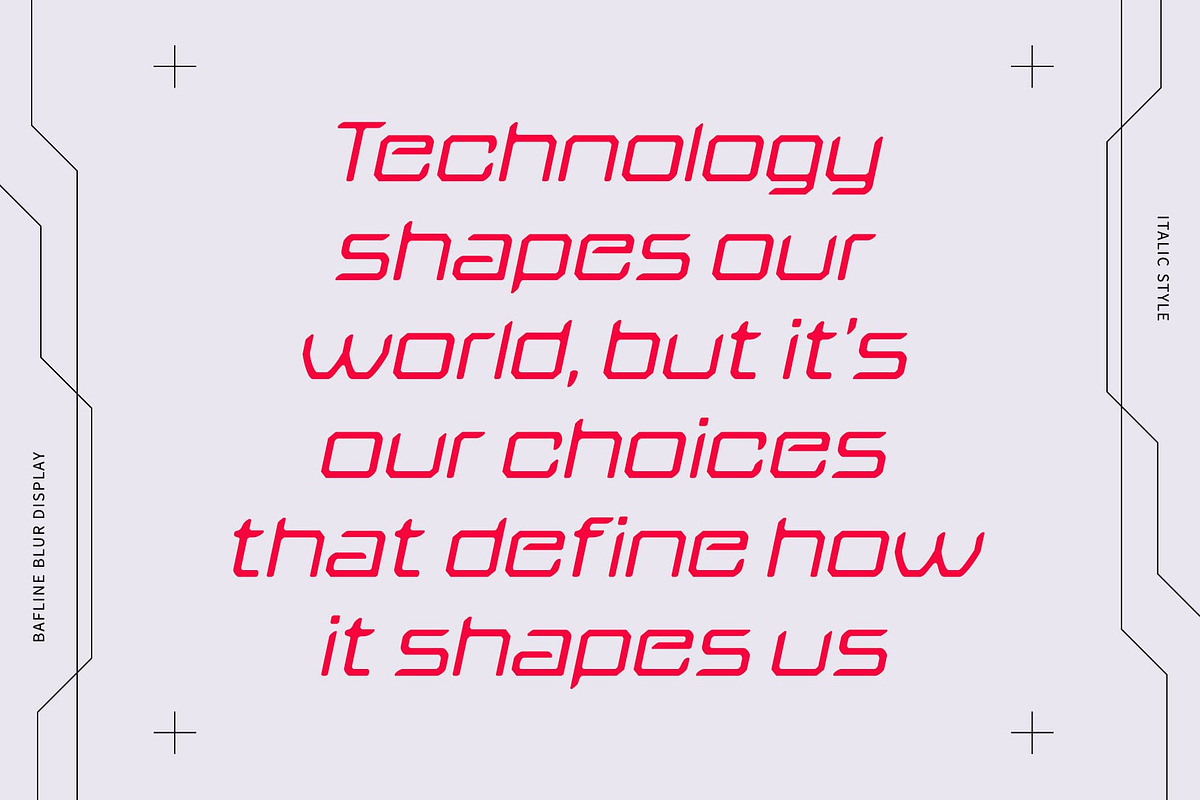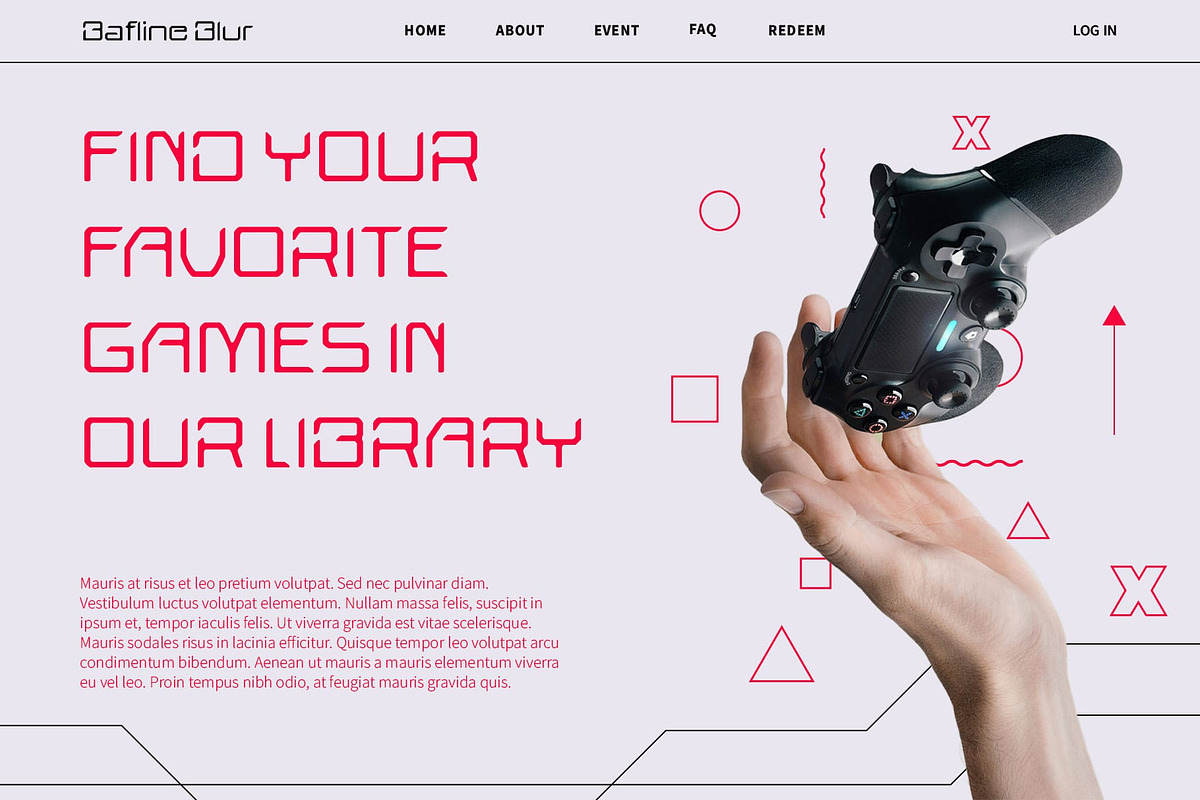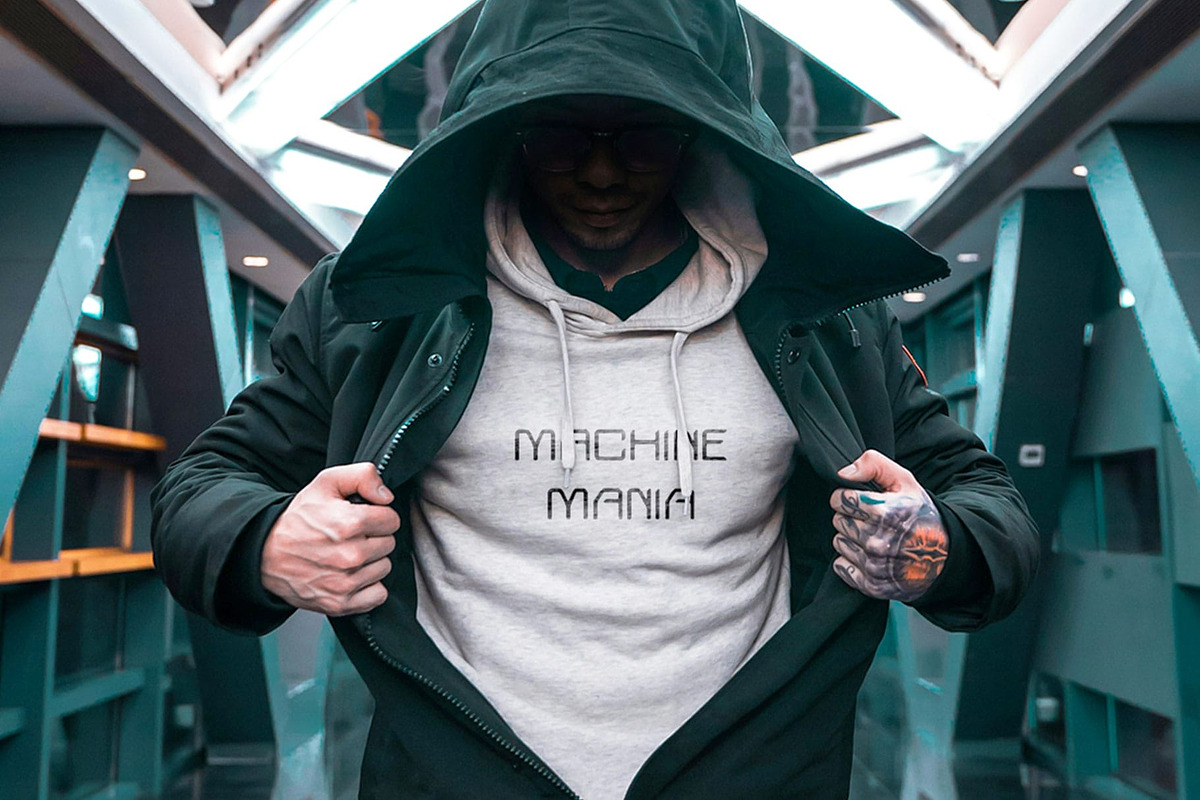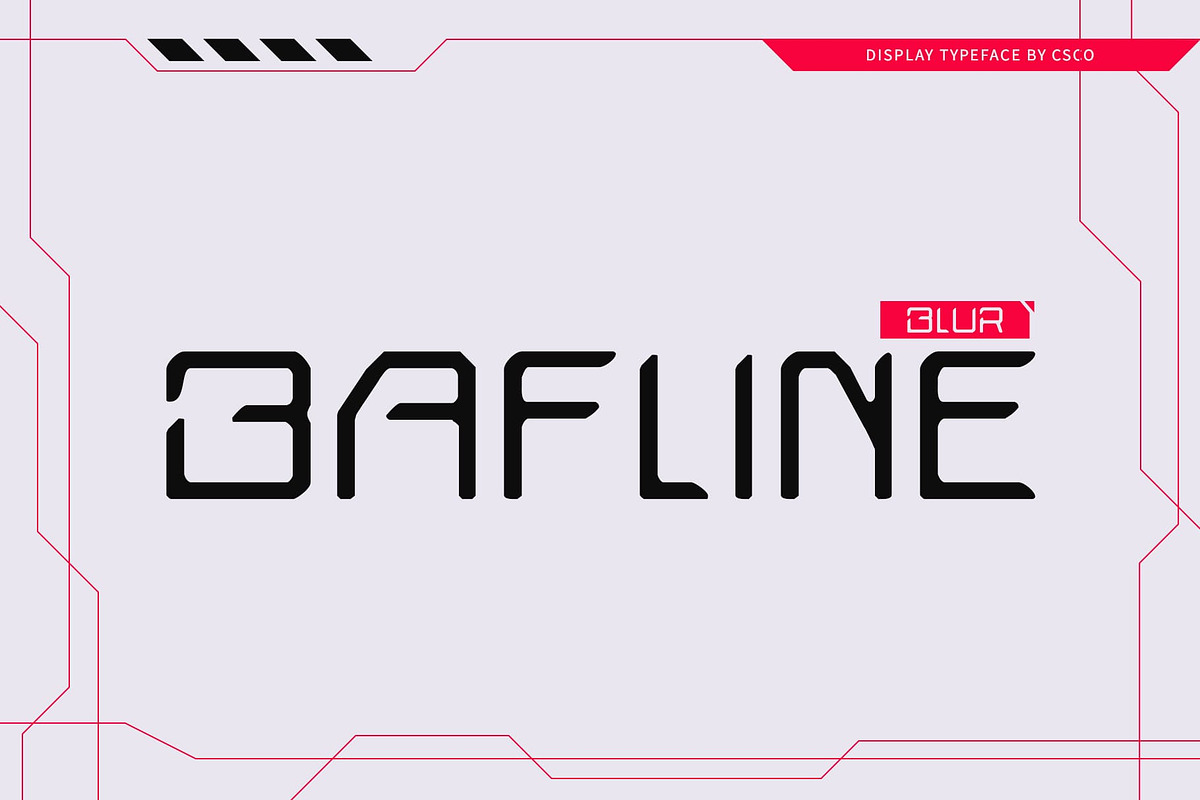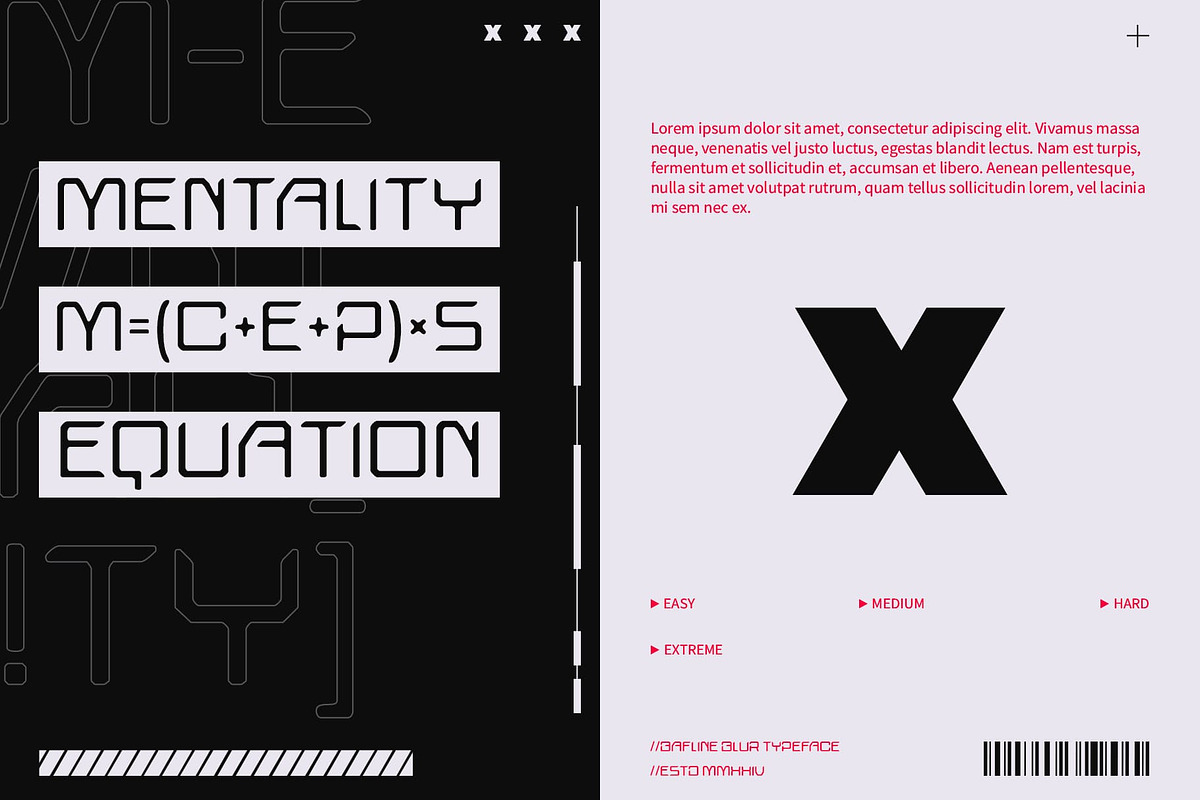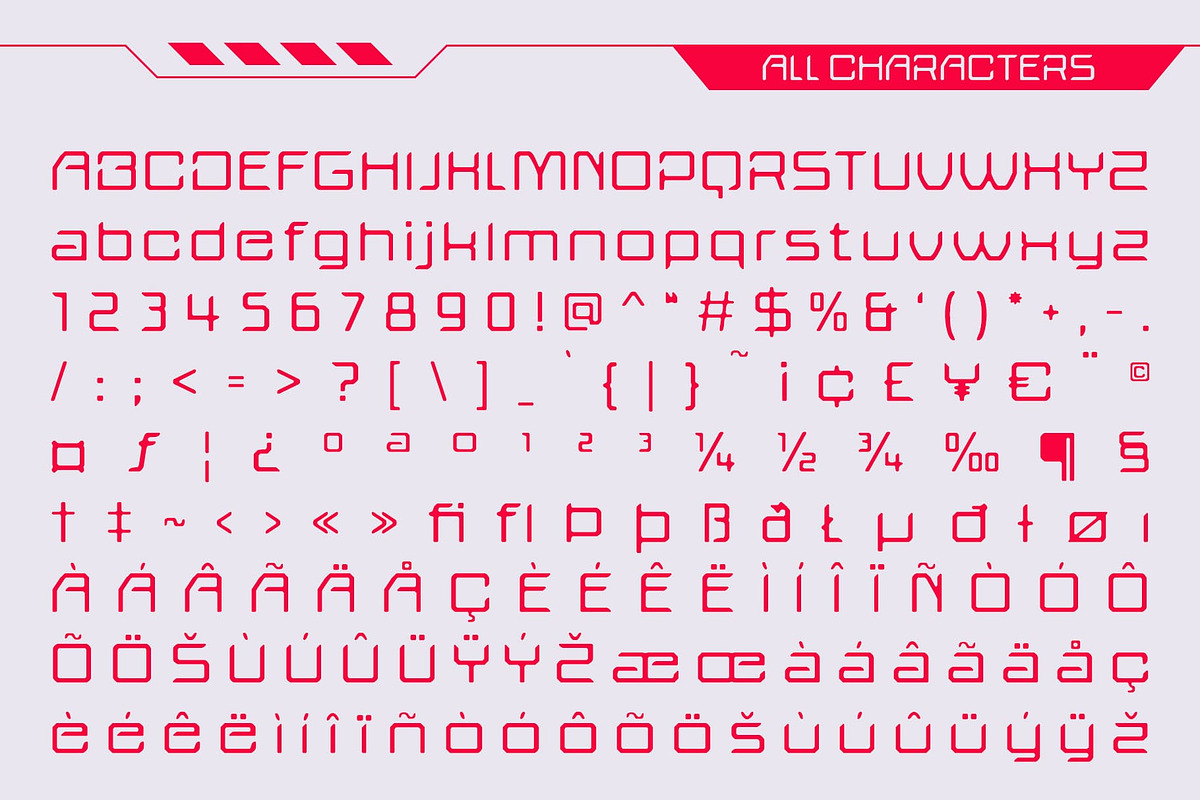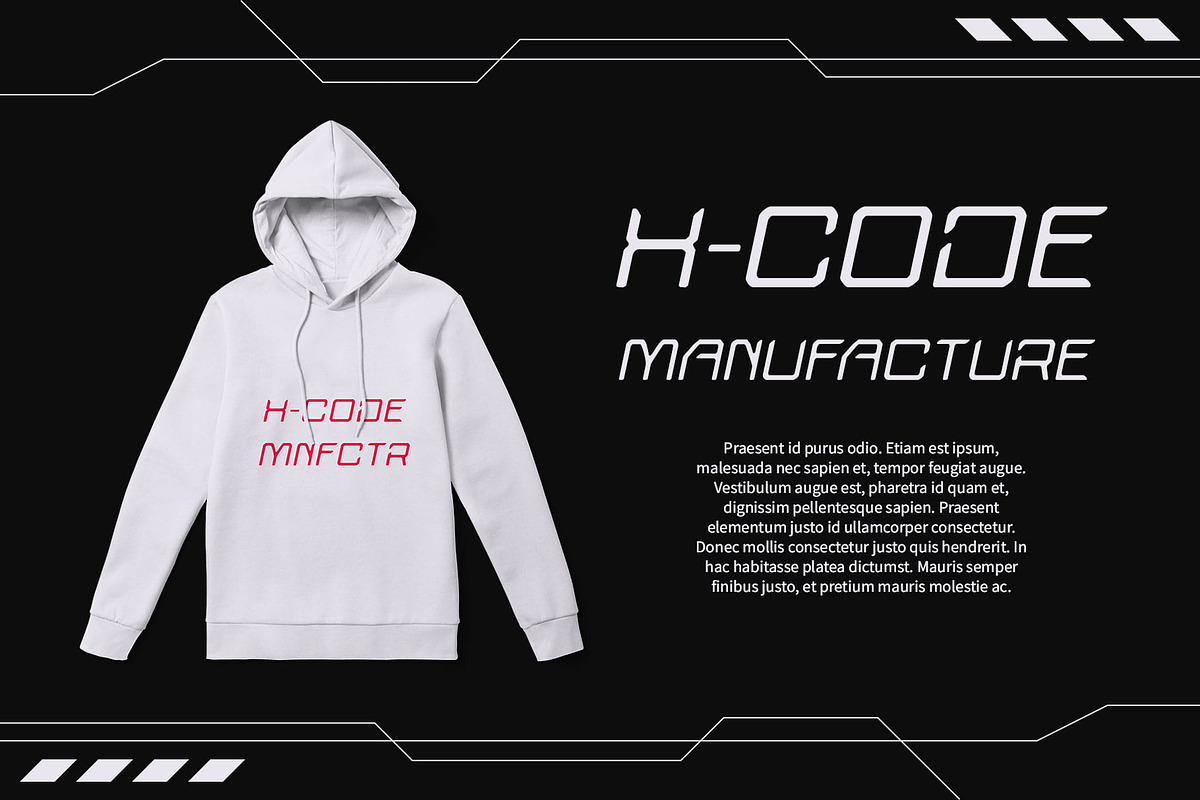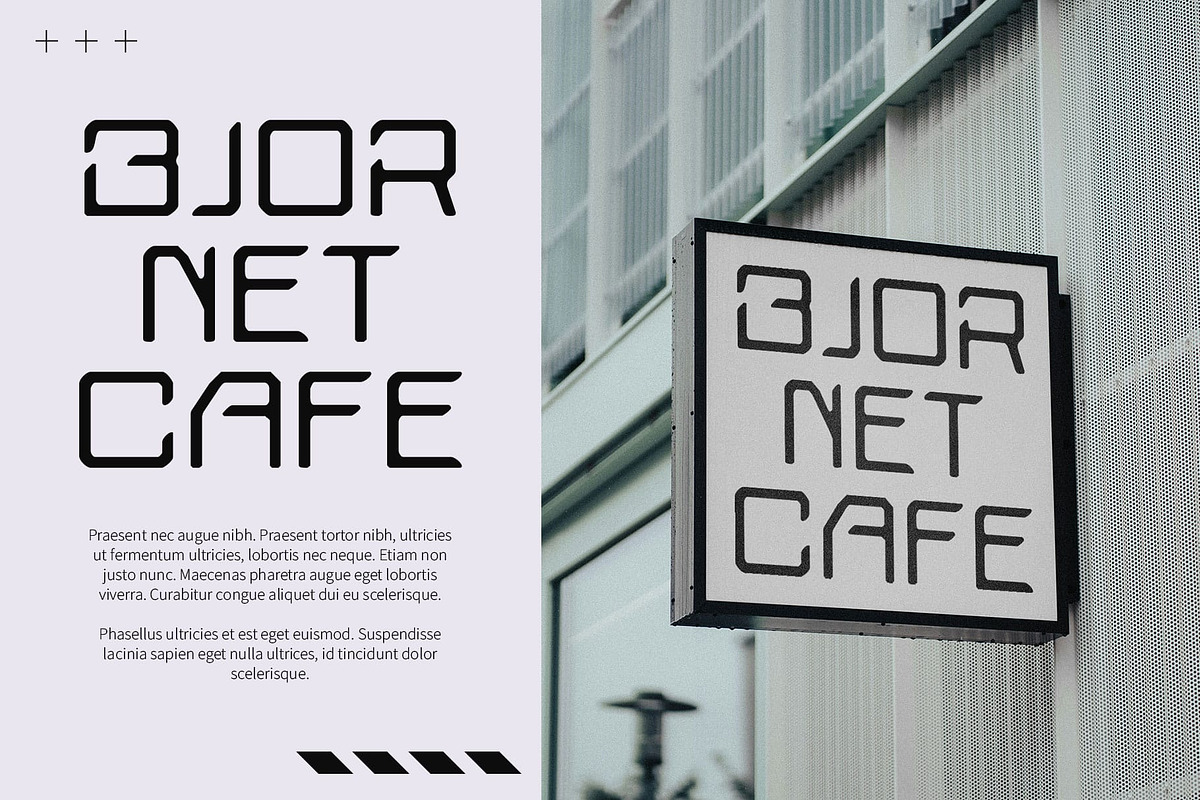
Bafline Blur
Bafline Blur Font: Futuristic Design with a Dynamic Touch
Modern Sans-Serif with Futuristic Shape Bafline Blur is a modern sans-serif display font that combines a futuristic shape with a blur effect, creating a sleek and innovative appearance. Its design features clean lines and geometric forms, reflecting a contemporary and avant-garde aesthetic that sets it apart in any design context.
Blur Effect for Depth and Dynamism The blur effect adds visual depth and dimension to Bafline Blur, resulting in a softer yet more dynamic appearance. This artistic touch enhances the font’s futuristic design, providing a unique and captivating look that stands out while maintaining a modern edge.
Ideal for Cutting-Edge and Eye-Catching Designs Perfect for technology branding, event posters, and digital media, Bafline Blur excels in projects that require a cutting-edge, eye-catching look. Its blend of clean lines, geometric shapes, and the blur effect makes it ideal for creating standout and memorable visual elements that capture attention.
Versatile for Innovative and Artistic Applications Whether you’re designing for high-tech brands, futuristic events, or digital platforms, Bafline Blur offers a versatile and artistic solution. Its modern design and dynamic blur effect make it an excellent choice for projects aiming to achieve a distinctive, forward-thinking appearance.